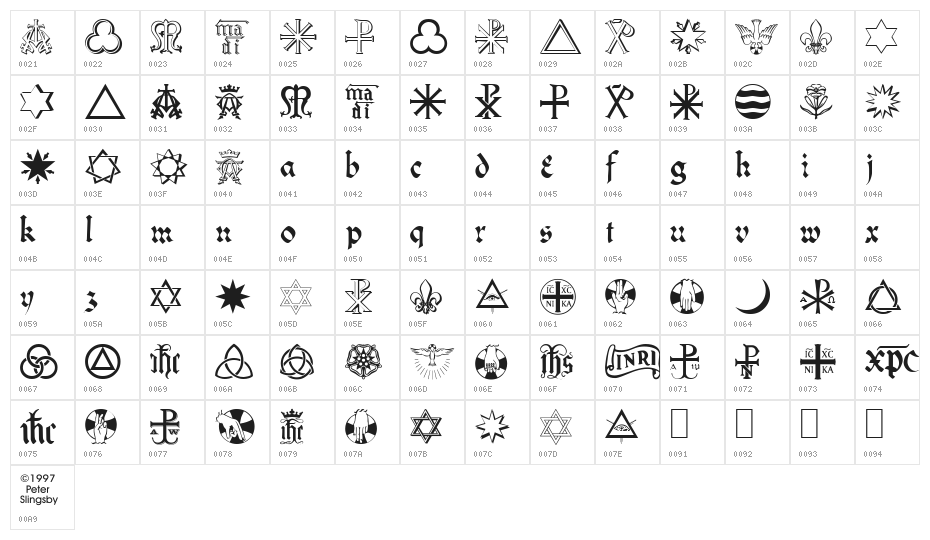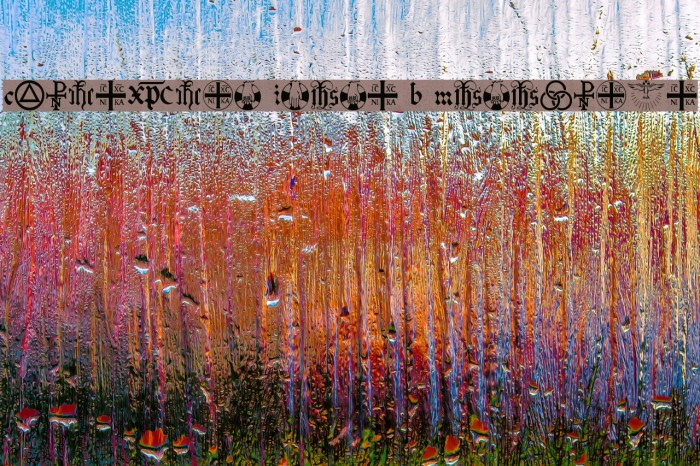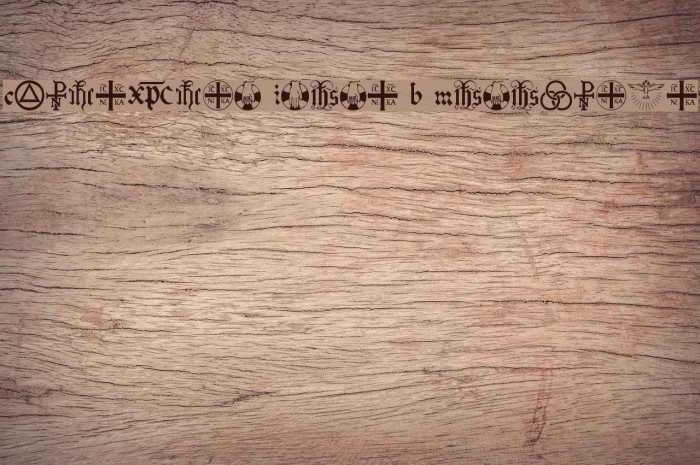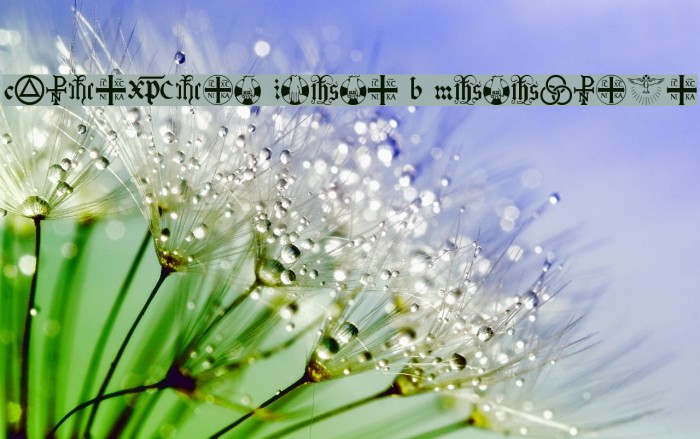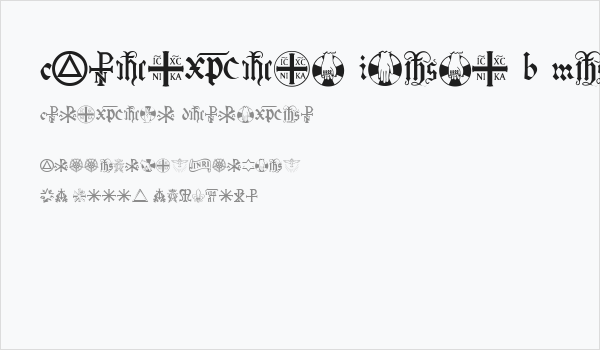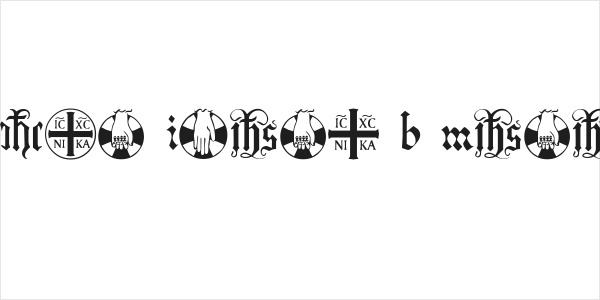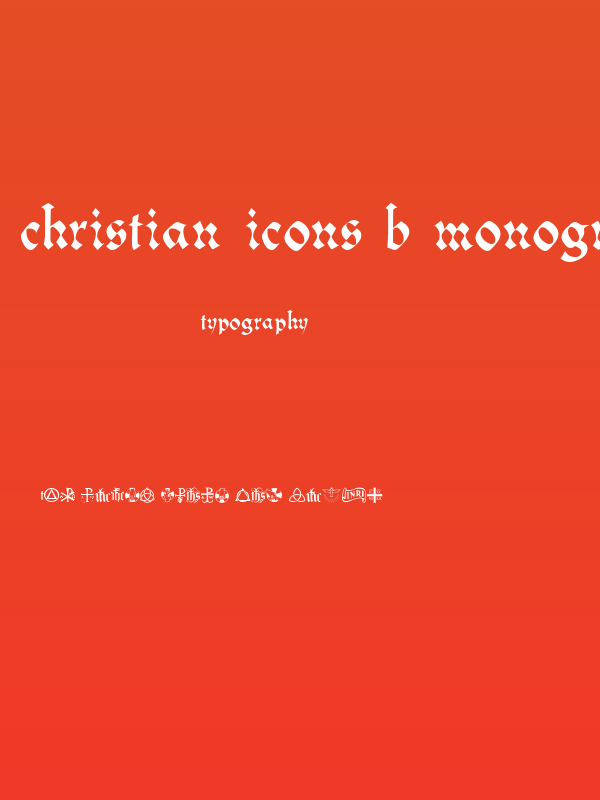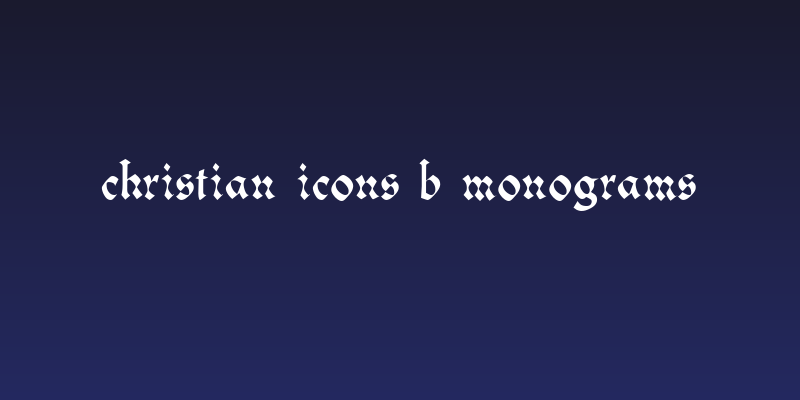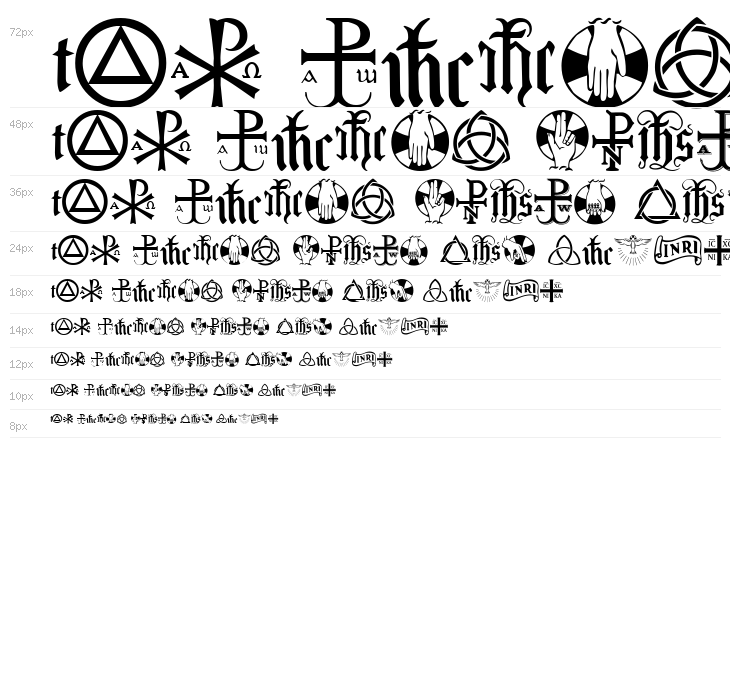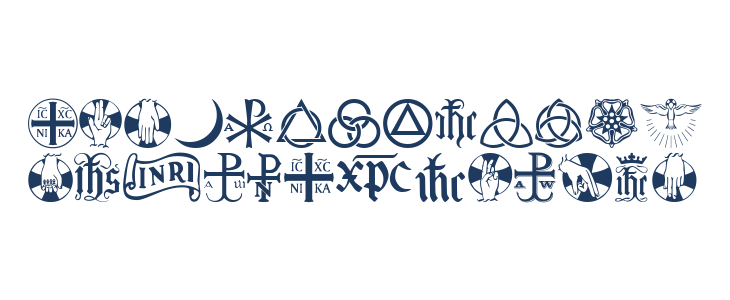
Christian Icons B Monograms Font
Christian Icons B Monograms Description
This font features a distinctive blackletter style, characterized by its bold, angular strokes and intricate detailing. The lowercase letters exhibit a traditional Gothic influence, with sharp serifs and a dramatic flair. The font includes a variety of Christian monograms and symbols, each intricately designed with religious motifs and iconography. These elements add a unique decorative aspect, making it suitable for projects that require a historical or ecclesiastical theme. The overall aesthetic is both ornate and authoritative, capturing the essence of medieval script.
| Overall Style | Decorative, Historical |
| Use Case | Logos, Decorative text, Religious materials |
| Proposed Projects | Ideal for religious publications, historical reenactment materials, themed event invitations, or decorative art pieces. |